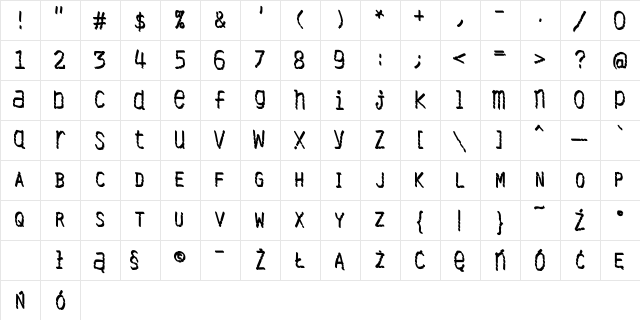
Antibiotic Regular
Foundry: High-Logic
Designer: High-Logic - Erwin Denissen 1999
Design Context for Antibiotic
Antibiotic is a composed and adaptable typeface that performs quietly and consistently across a wide range of design contexts.